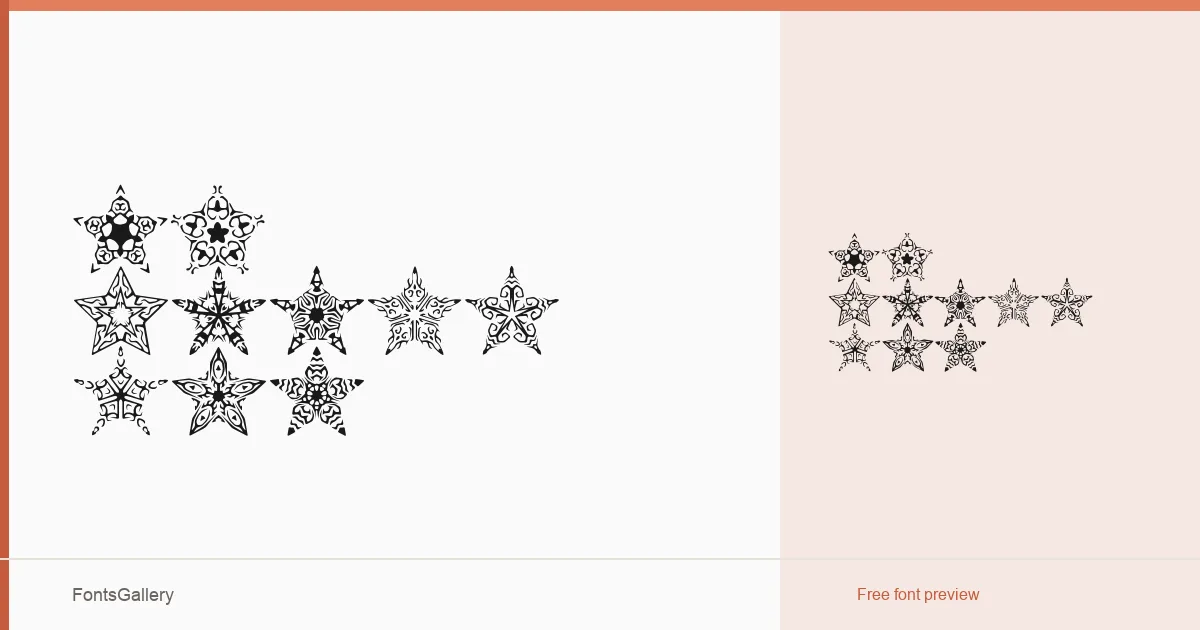
About 90 Stars BRK Font
90 Stars BRK is a decorative typeface created by Brian Kent under his Ænigma Fonts foundry. It brings a playful, whimsical spirit combined with a vintage charm that makes it instantly eye-catching and distinctive. This font is ideal for projects that demand personality and a sense of nostalgic fun.
As a decorative typeface, 90 Stars BRK features letterforms that lean into a playful and whimsical aesthetic, making each character feel lively and expressive. The vintage quality woven into its design gives it a retro character that feels both familiar and refreshingly unique. Its decorative nature means it commands attention, making individual letters and words feel like design elements in their own right.
90 Stars BRK shines in bold, visual-first applications such as posters, packaging, greeting cards, social media graphics, and t-shirt designs where its expressive character can take center stage. It works best in display settings where its decorative personality can be appreciated at larger sizes. For a balanced typographic combination, consider pairing it with the clean neutrality of Helvetica or the complementary style of Aresink to ground its playful energy alongside more readable body text.